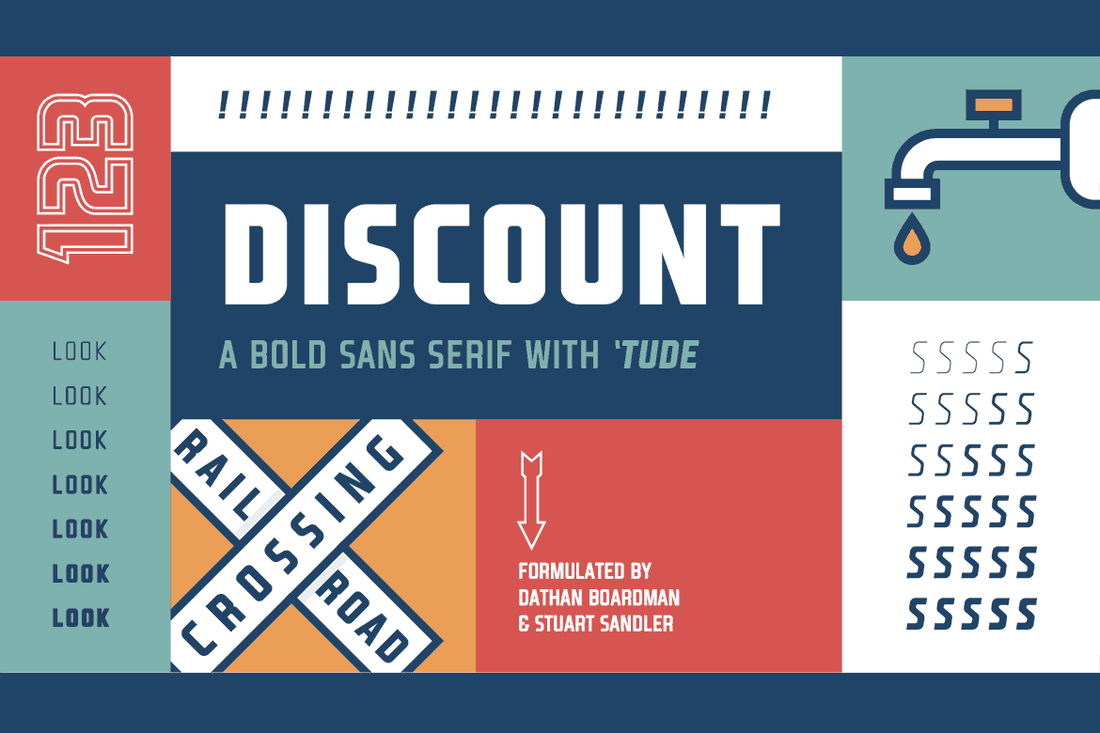
Meet Discount - Our newest mid-century modern sans serif 16-weight superfont family chock full of vintage flavor with a modern vibe. And, it's only available exclusively at DDC Fonts
Inspried by an aging sign we spotted along the roadside, Discount was born out of the need to create a bold condensed display headline family for logos, apps and graphics. The more we worked with it, it became clear that we needed to expand it into more weights and styles.
Discount is one of the few font families we've created that feels perfectly at home in a vintage inspired designs as well as in modern mobile apps - It's a timeless font family that feels both retro and contemporary at the same time.